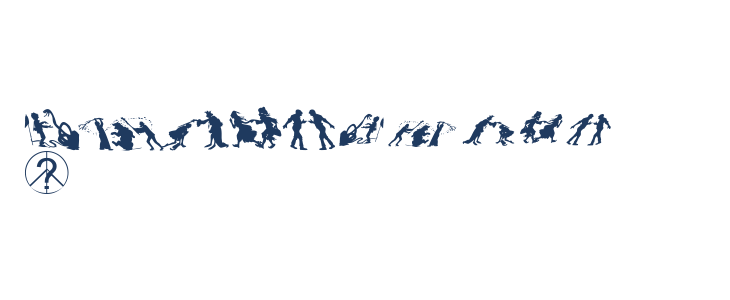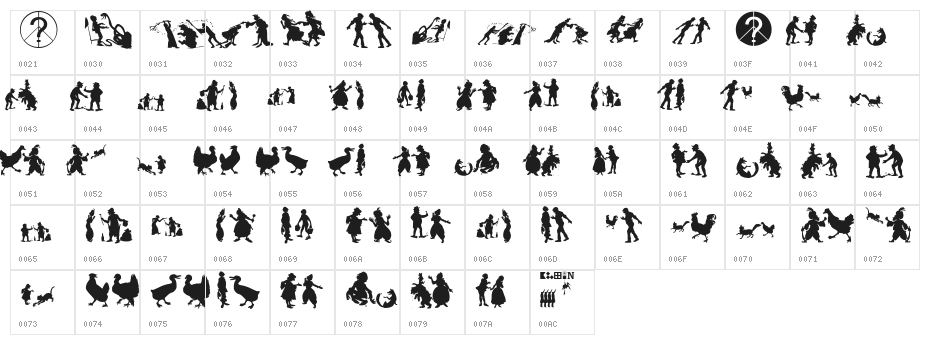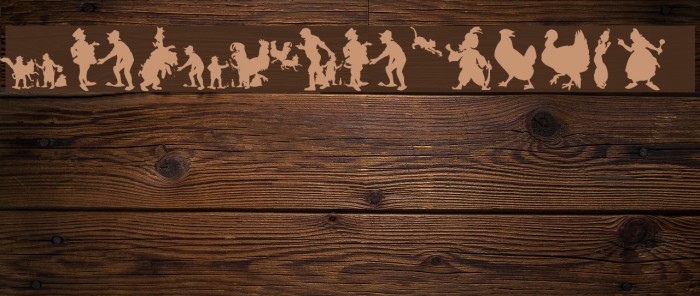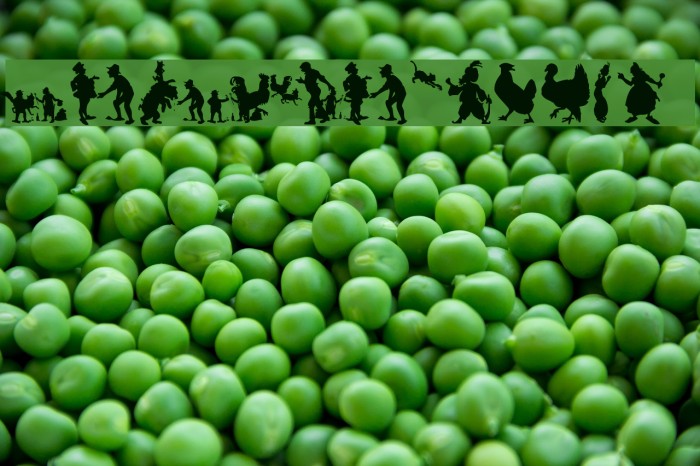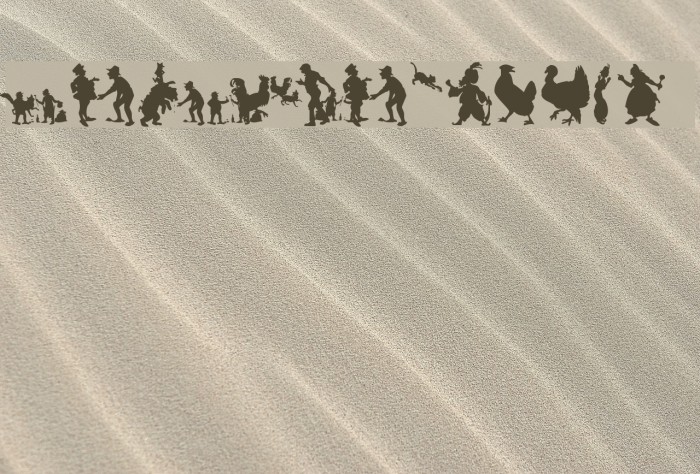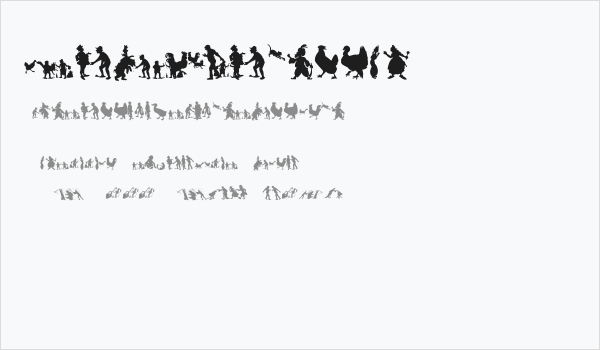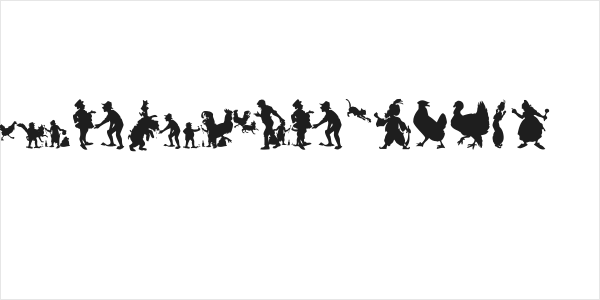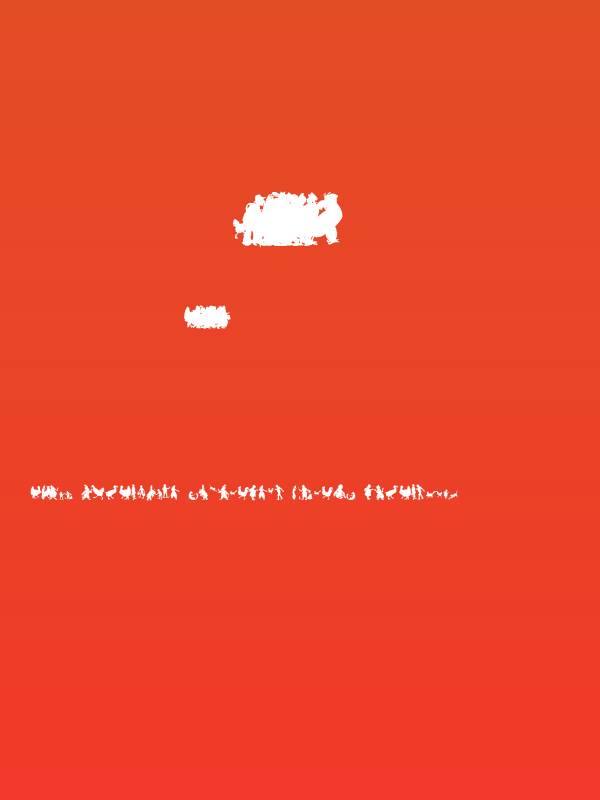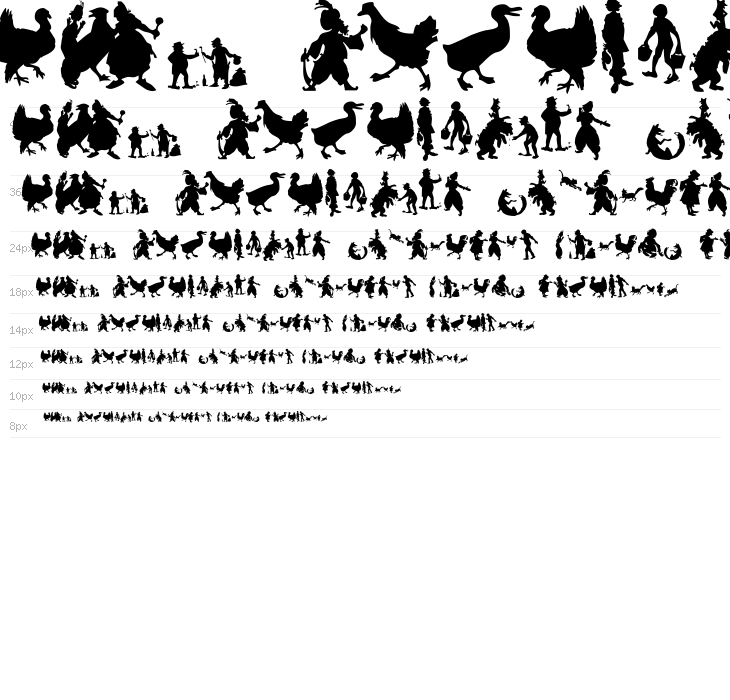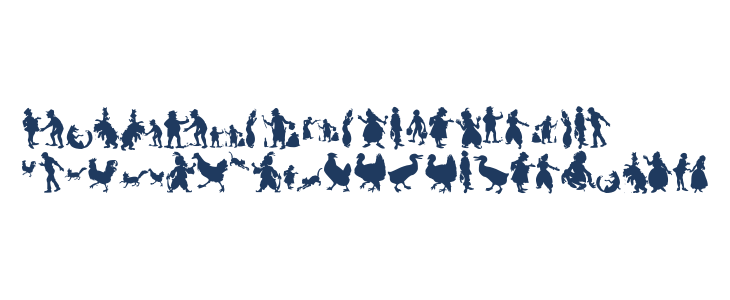
PeaceOnEarth Font
PeaceOnEarth Description
This font is a highly decorative and artistic representation, where each character is formed by intricate silhouettes of people and animals. The design is whimsical and imaginative, capturing scenes of interaction and movement. Each letter is unique, featuring detailed silhouettes that create a narrative within the character itself. The font is not meant for readability in traditional text but serves as a visual storytelling medium. It evokes a sense of playfulness and creativity, making it ideal for projects that require a strong visual impact and an element of surprise.
| Use Case | Logos, Posters, Artistic Projects |
| Proposed Projects | Ideal for artistic projects, posters, children's books, or any design requiring a whimsical and narrative-driven typeface. |